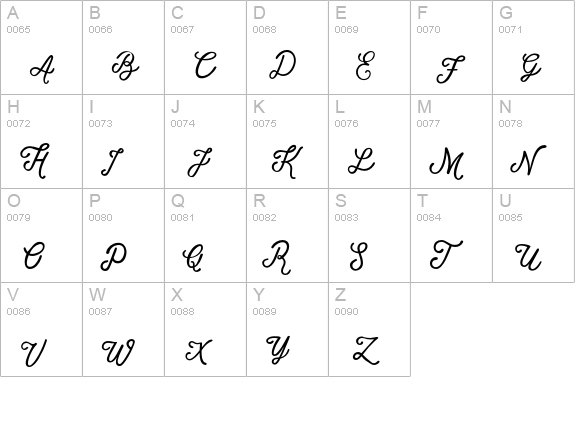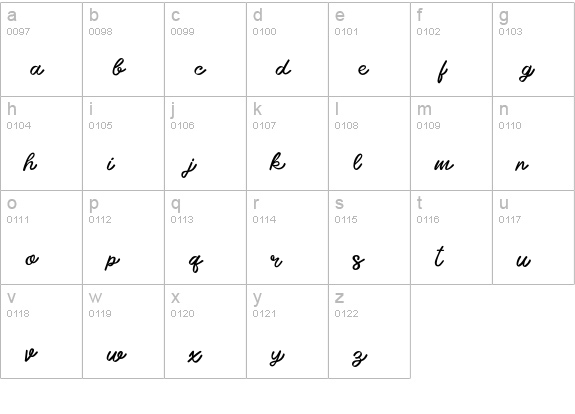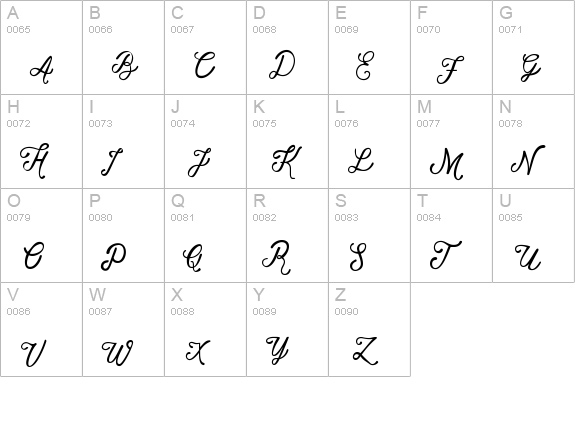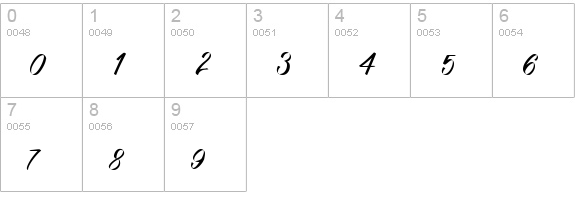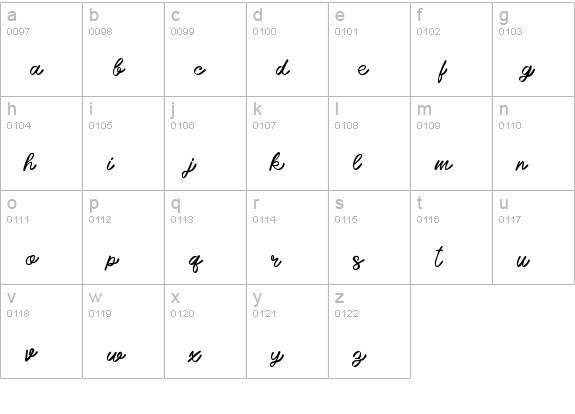
Lily Of Holy Font Details
Lily Of Holy font is a stunning and elegant typeface that exudes a sense of grace and sophistication. Its delicate curves and intricate details make it perfect for adding a touch of beauty to any design project. Whether used for invitations, branding, or editorial purposes, this font is sure to make a statement.